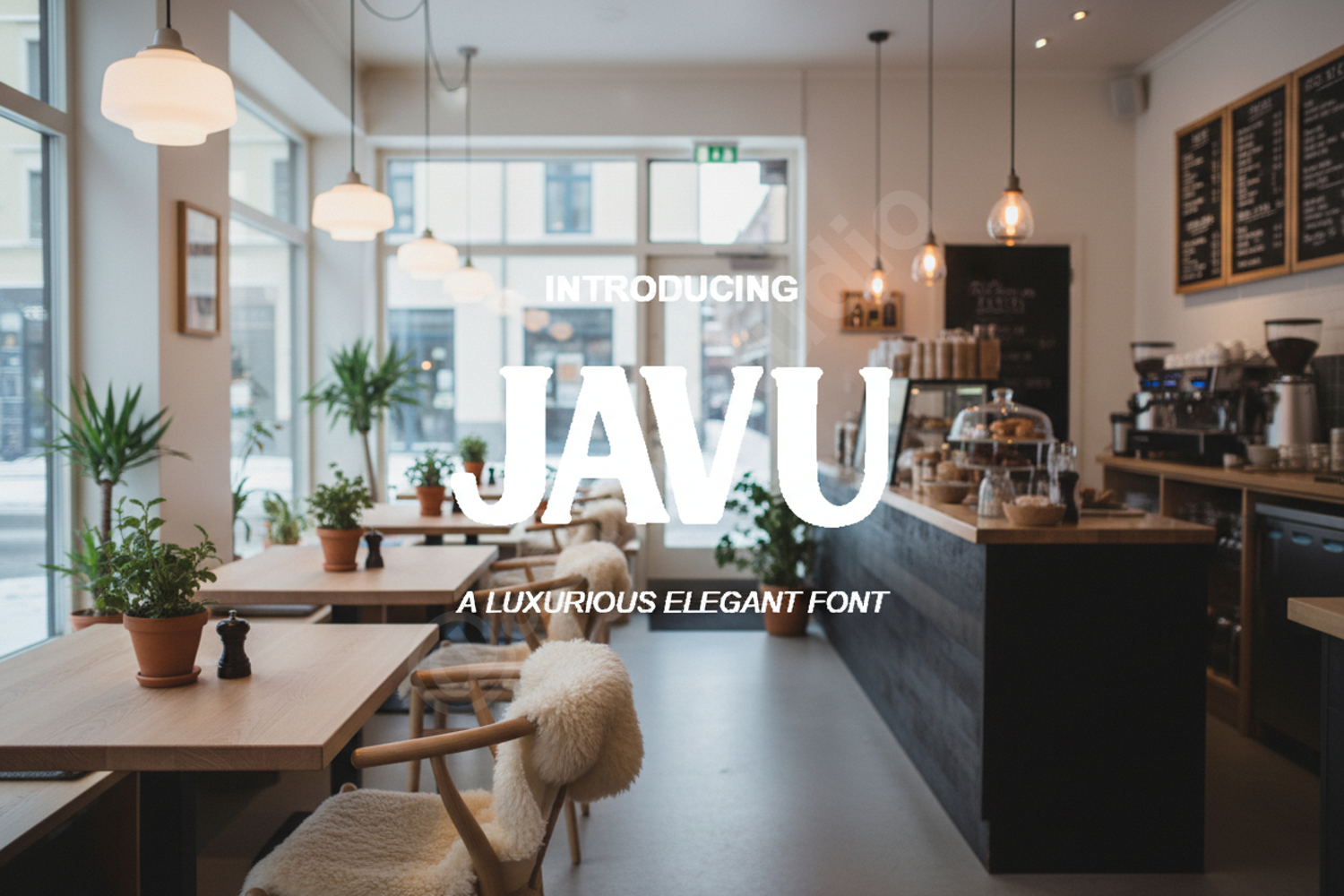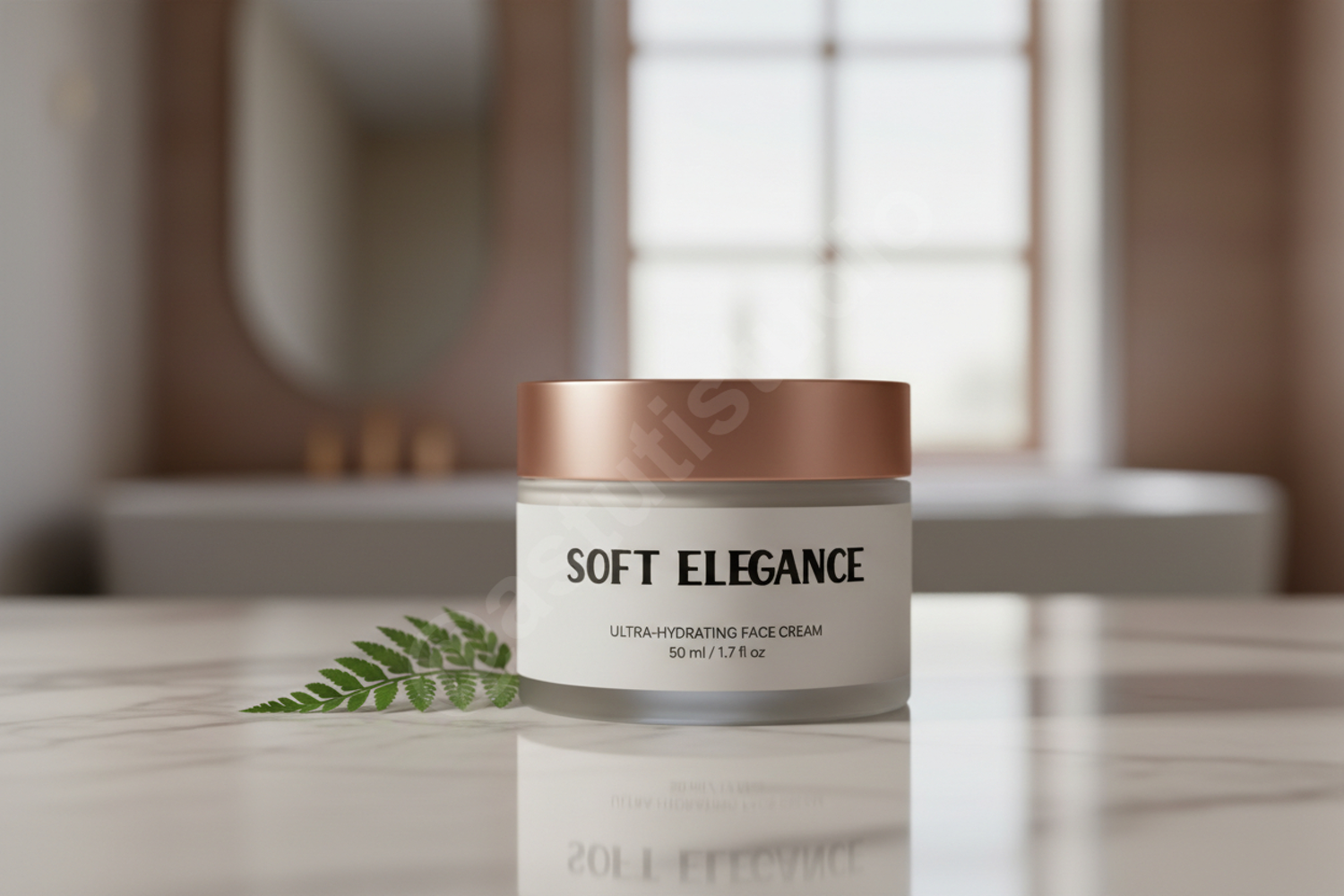
Javu - Modern & Minimalist Geometric Sans Serif
Javu
Experience the perfect blend of contemporary aesthetics and timeless functionality with Javu. This premium geometric sans serif font is meticulously crafted to bring a touch of sophistication to any design project. With its clean lines and balanced proportions, Javu offers unparalleled readability and a professional look that stands out in both digital and print mediums.
- Professional Branding and Identity: Create a memorable brand voice with clean, modern typography.
- Editorial Design: Perfect for headlines, subheadings, and body text in magazines or lookbooks.
- Digital Marketing: Enhance your social media graphics, website headers, and advertisement banners.
- Corporate Presentations: Bring a sleek, modern edge to your business decks and reports.
- Packaging Design: Ideal for minimalist product labels and high-end retail packaging.